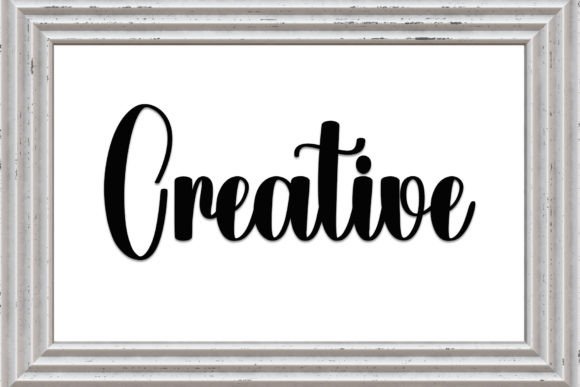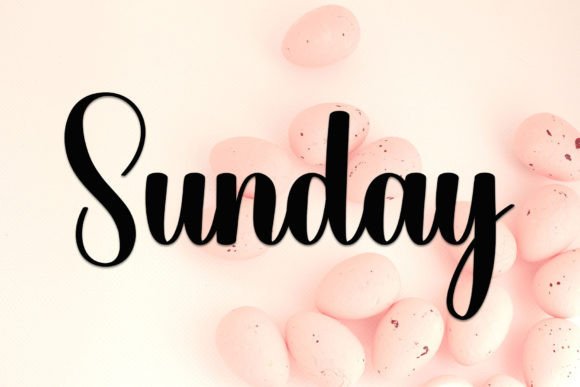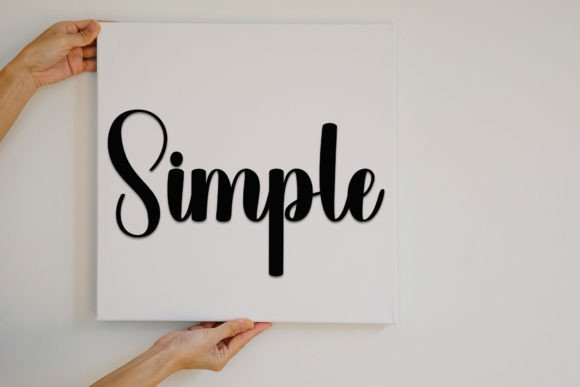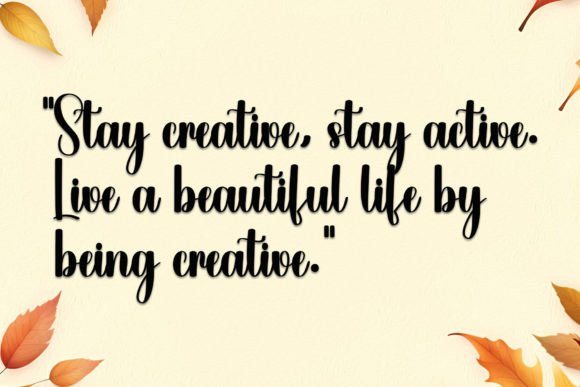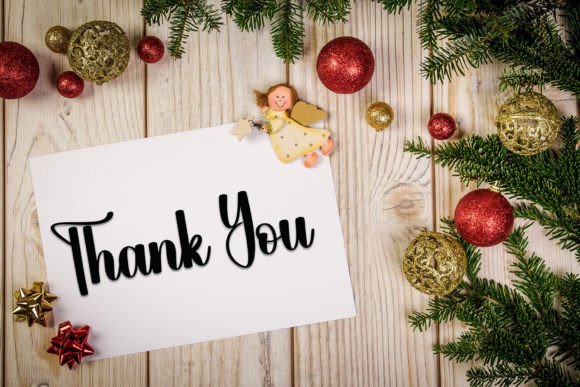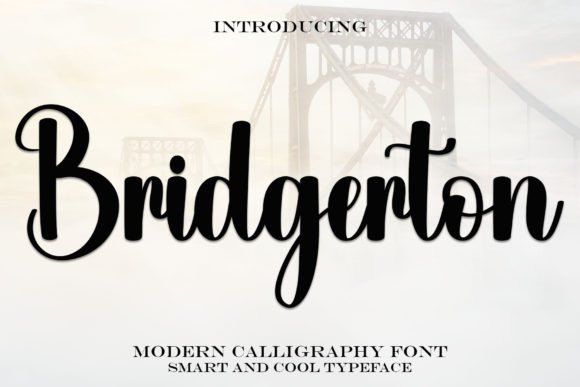
Bridgerton Font: Elevate Your Designs with Elegance and Sophistication
In the world of typography, fonts play a crucial role in bringing creative ideas to life. For designers and crafters, finding the perfect font can be a daunting task, especially when looking for something that exudes elegance and sophistication. This is where the Bridgerton Font comes in – a delicate, elegant, and flowing handwritten font that has captured the hearts of many designers and crafters alike.
What Makes Bridgerton Font So Special?
Bridgerton Font is a beautifully crafted font that boasts well-balanced characters, making it an ideal match for a wide range of designs. Its flowing and elegant strokes add a touch of sophistication to any project, making it perfect for designers and crafters who want to create something truly special. Whether you’re working on a wedding invitation, a logo, or a branding project, Bridgerton Font is sure to make your designs come alive.
One of the standout features of Bridgerton Font is that it’s PUA (Private Use Area) coded. This means that you can easily access all the amazing glyphs and ligatures without any hassle. For designers and crafters, this is a game-changer, as it allows for greater flexibility and creativity when working on projects. With PUA coding, you can unlock a world of possibilities and take your designs to the next level.
Perfect for a Wide Range of Designs
Bridgerton Font is incredibly versatile, making it suitable for a wide range of designs. Whether you’re working on:
- Logos and branding projects
- Signs and displays
- Packaging and labels
…Bridgerton Font is sure to be a perfect fit. Its elegant and flowing strokes make it an excellent choice for any project that requires a touch of sophistication and class.
Why Designers and Crafters Love Bridgerton Font
So, what is it about Bridgerton Font that designers and crafters love so much? Here are just a few reasons:
- Elegance and sophistication: Bridgerton Font exudes elegance and sophistication, making it perfect for designers and crafters who want to create high-end designs.
- Versatility: With its well-balanced characters and flowing strokes, Bridgerton Font is incredibly versatile and can be used for a wide range of designs.
- Easy to use: With PUA coding, accessing glyphs and ligatures is a breeze, making it easy to get creative with your designs.
- Unique and eye-catching: Bridgerton Font is a unique and eye-catching font that is sure to make your designs stand out from the crowd.
How to Use Bridgerton Font in Your Designs
Using Bridgerton Font in your designs is easy. Here are a few tips to get you started:
- Pair it with other fonts: Bridgerton Font pairs well with other fonts, so don’t be afraid to experiment and find the perfect combination for your design.
- Experiment with colors: With its elegant and flowing strokes, Bridgerton Font looks great in a range of colors. Experiment with different colors to find the perfect fit for your design.
- Play with glyphs and ligatures: With PUA coding, you can easily access glyphs and ligatures to add an extra touch of creativity to your designs.
In conclusion, Bridgerton Font is a delicate, elegant, and flowing handwritten font that is perfect for designers and crafters who want to add a touch of sophistication to their designs. With its well-balanced characters, PUA coding, and versatility, Bridgerton Font is an excellent choice for a wide range of designs. Whether you’re working on a wedding invitation, a logo, or a branding project, Bridgerton Font is sure to make your designs come alive.